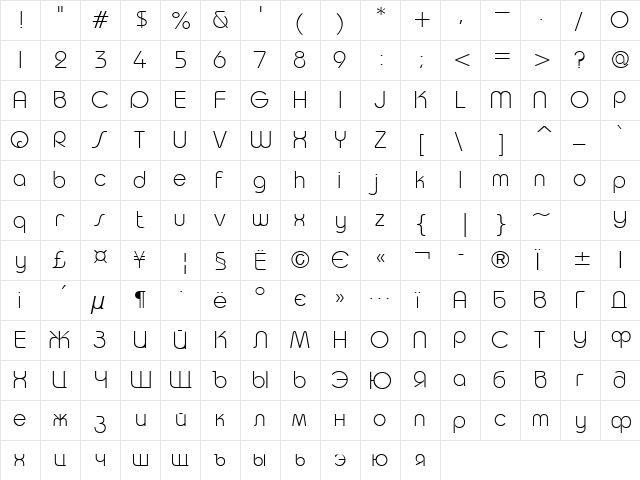
Taurus-Light Normal
Design Context for Taurus-Light Typeface
Taurus-Light takes a measured approach to typography — its balanced proportions and neutral character make it a reliable workhorse for both digital and print work. Its slender proportions lend an understated elegance to any composition.